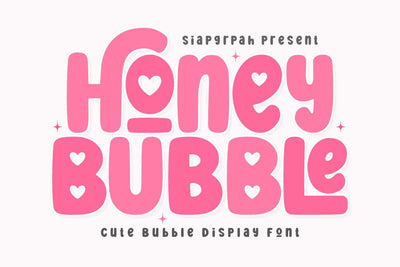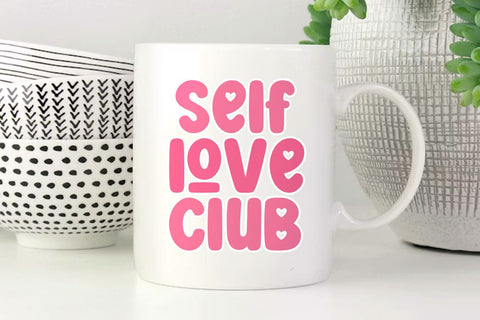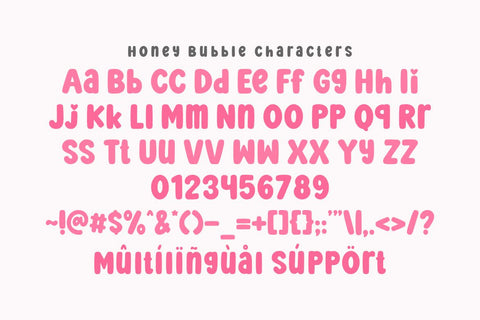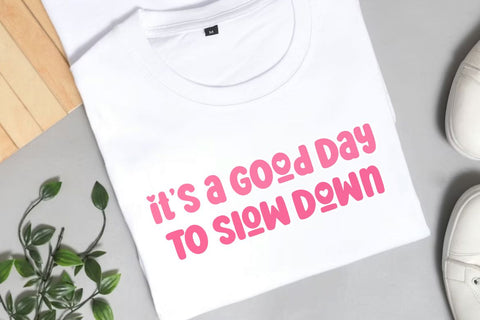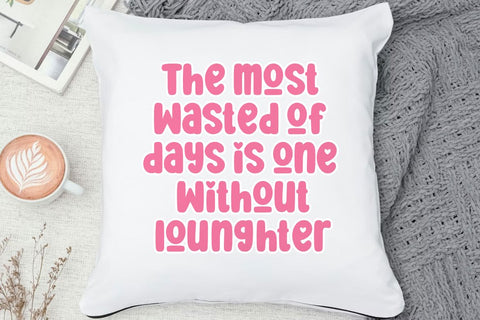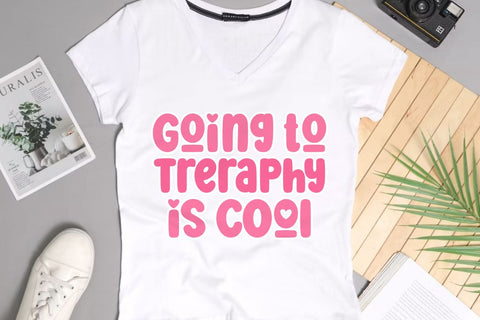
Honey Bubble - Cute Bubble Font
Bring your ideas to life with Honey Bubble, a adorable and bubble display font that exudes playfulness! Its soft curves and bold appearance are perfect for creating eye-catching headlines, posters, social media graphics, and branding. Add a dreamy touch to your designs with this delightful font that’s both fun and versatile.